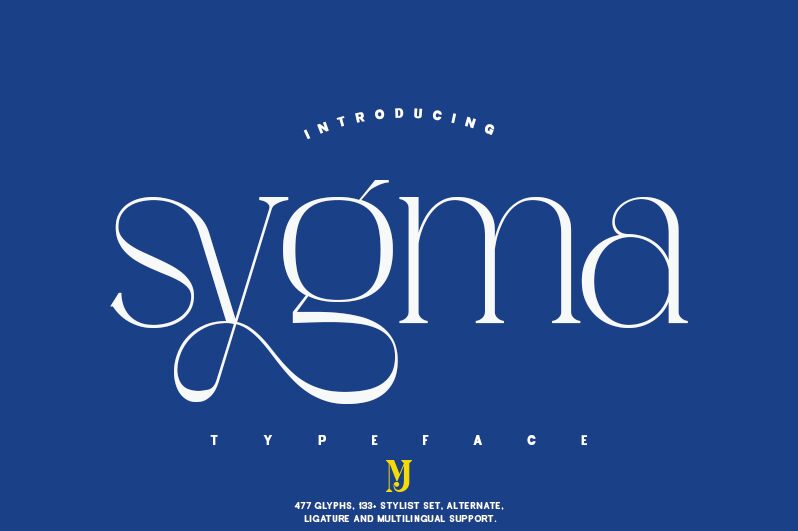
Introducing Sygma Bold, a light serif font by MJType. Perfect for projects needing a refined and elegant touch, Sygma Bold is the perfect choice for everything from wedding invitations to branding projects.
Sygma
Sygma Bold